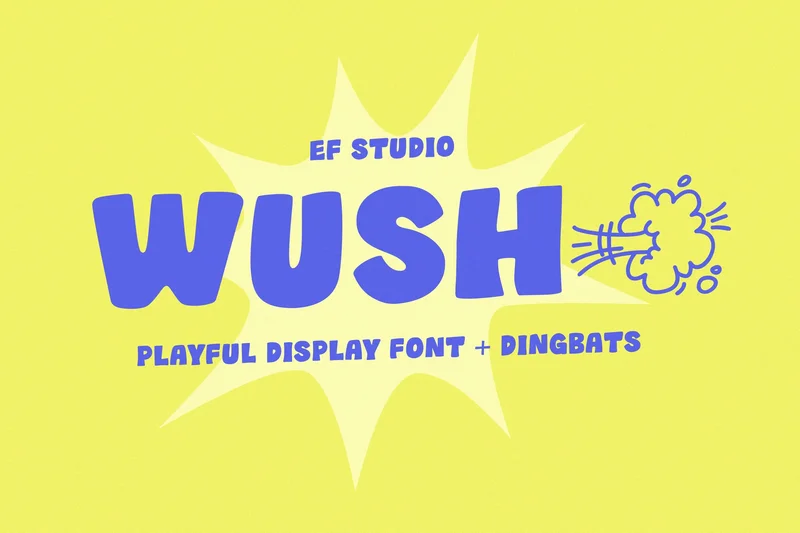
Wush Playful Display
Meet Wush, a playful display font bursting with energy and personality. Its chunky shapes, rounded edges, and comic-inspired rhythm make it perfect for designs that want to stand out with joy and confidence.
Wush also includes a set of dingbats built directly into the uppercase letters, giving you instant access to fun graphic elements without switching fonts. Perfect for posters, comic, stickers, packaging, or any project that needs a playful punch.